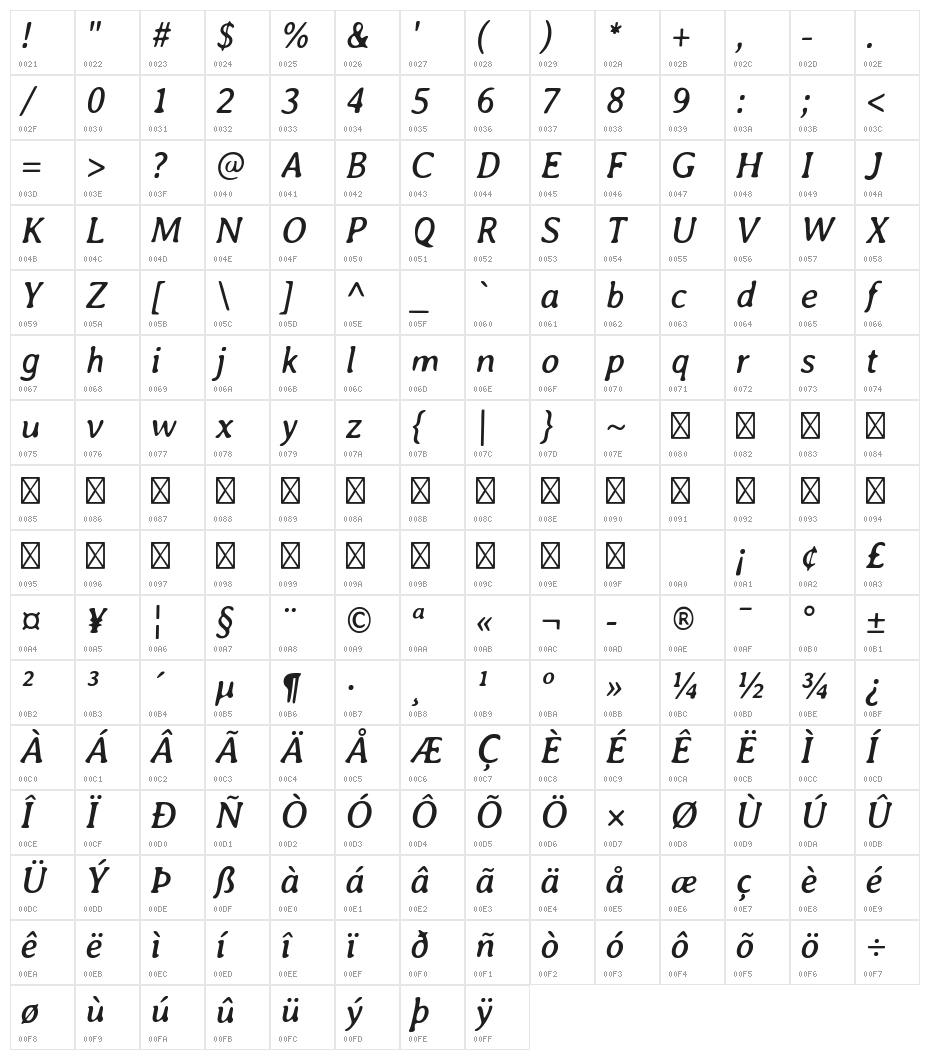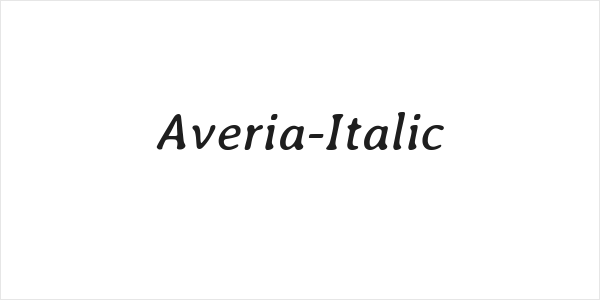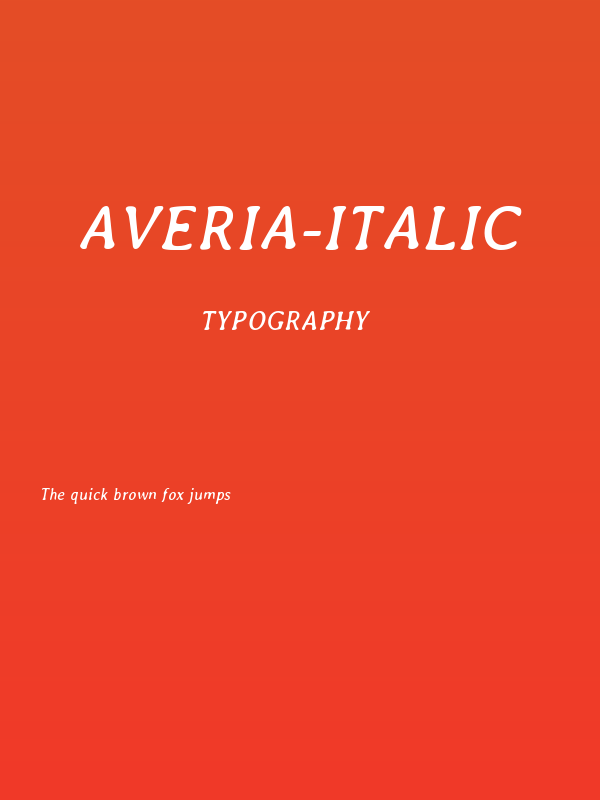
Averia-Italic Font
Averia-Italic Description
This font features a smooth, flowing italic style that combines elegance with readability. The characters have a slight slant, giving them a dynamic and lively appearance. The strokes are moderately thick, providing a balanced contrast that enhances legibility. The uppercase letters are slightly taller than the lowercase, maintaining a consistent and harmonious look. The numerals and special characters are well-integrated, matching the overall aesthetic of the font. The design is versatile, suitable for both formal and casual applications, making it an excellent choice for a variety of design projects.